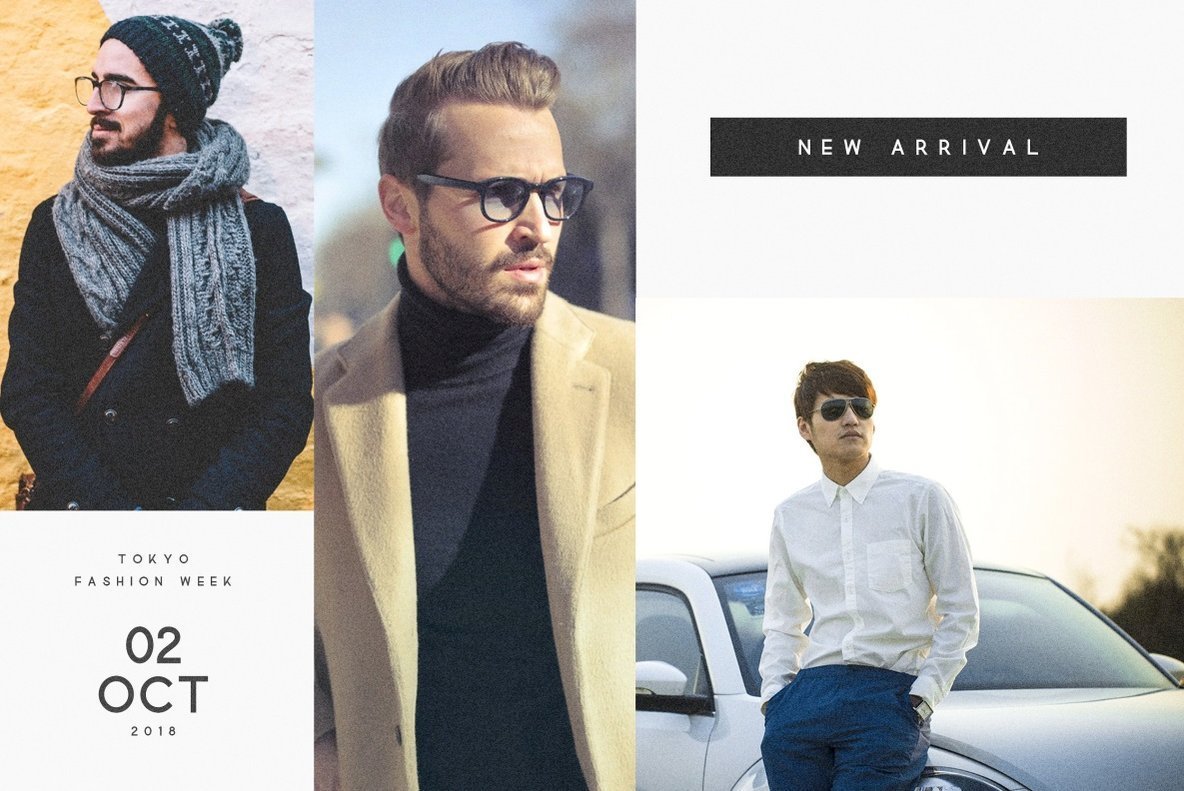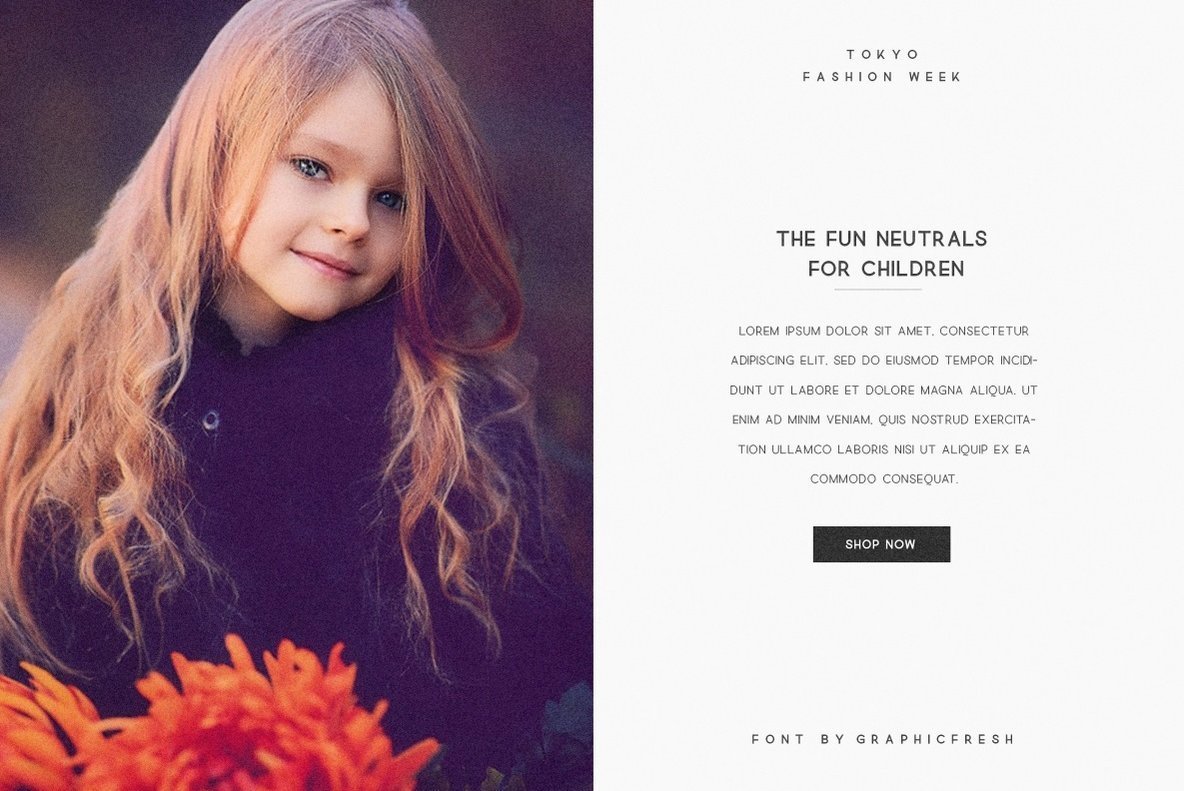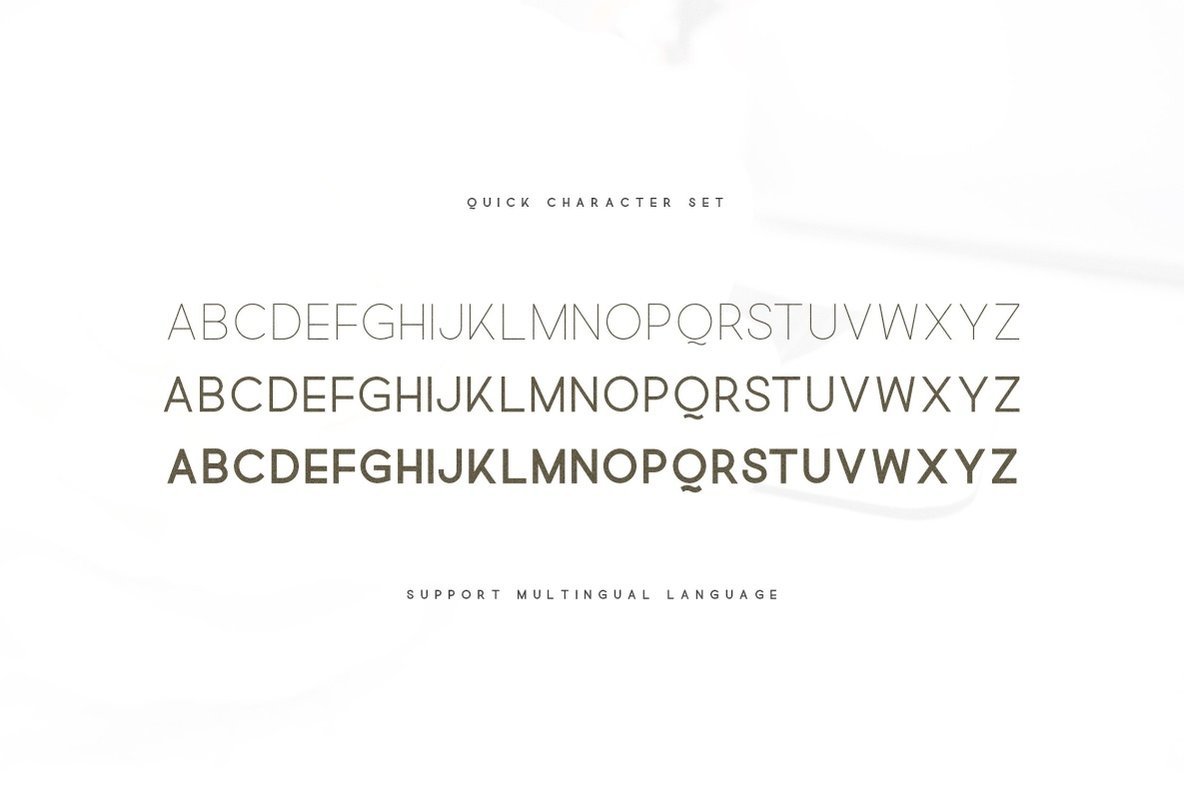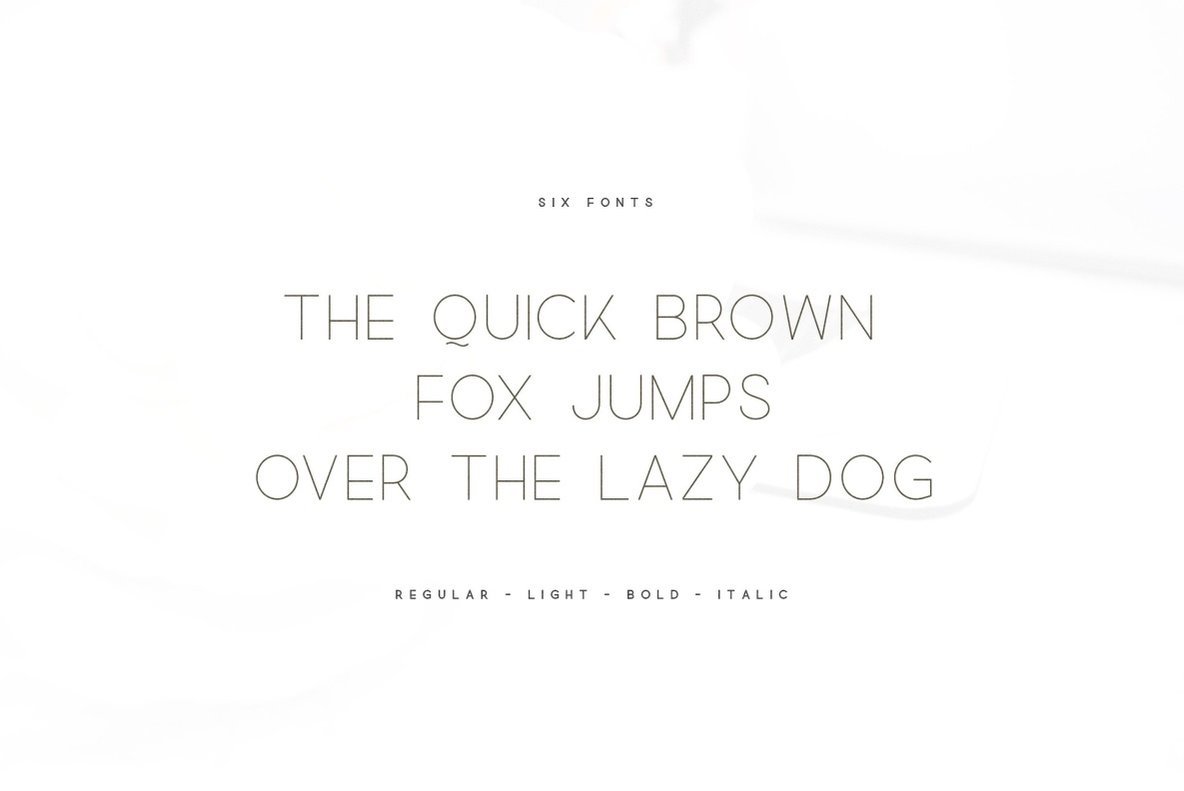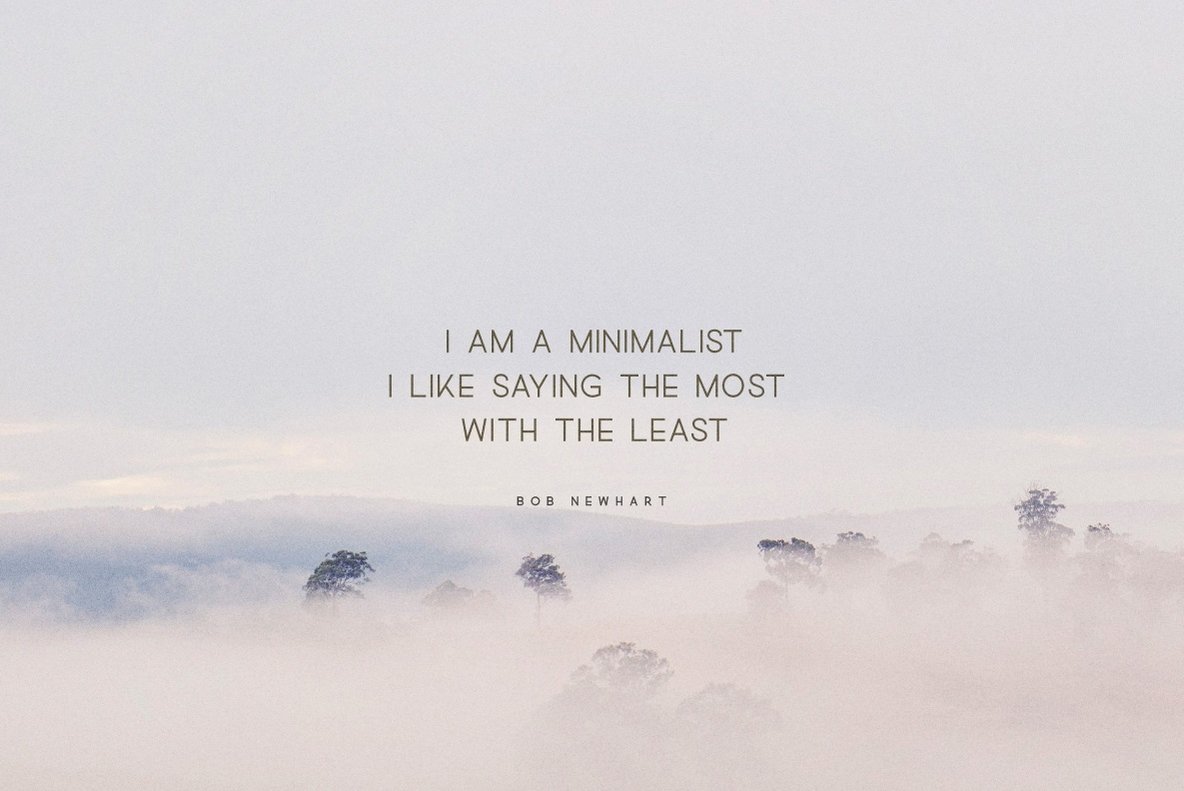
Quick - An Elegant Sans Serif and minimalist character! it's perfect for logos, name card, magazine layouts, invitations, headers, or even large-scale artwork.